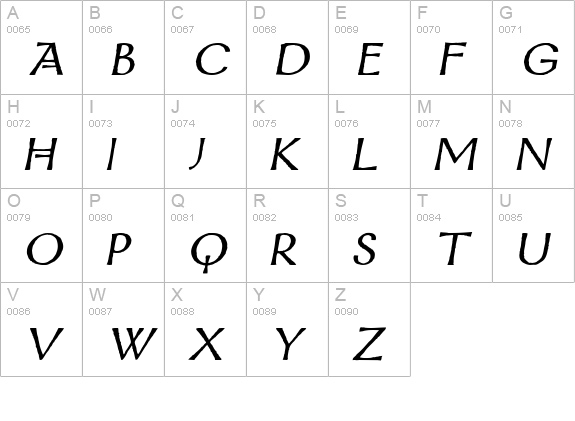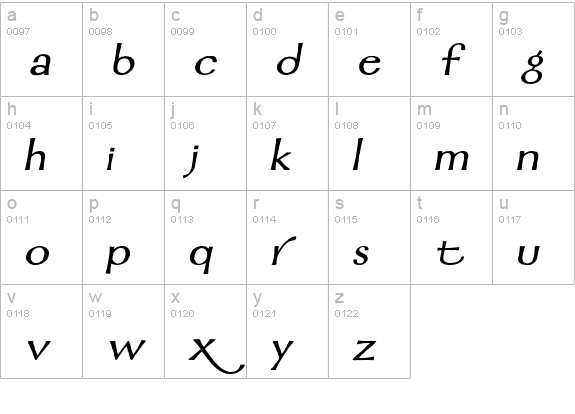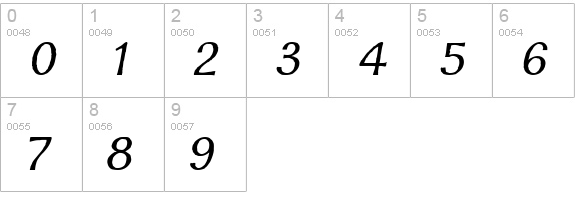
Mordred Demi Bold Italic is a sub-bold, structured, italic variant in the Mordred typeface family \xE2\x80\x94 well suited to sub-headlines and emphasised passages.
Introducing Mordred Demi Bold Italic font - a striking and dynamic typeface that exudes strength and modernity. The unique combination of boldness and elegance makes this font perfect for headlines, branding, and design projects that require a touch of sophistication. The italicized slant adds a sense of movement and energy to the text, making it stand out from the crowd. Mordred Demi Bold Italic font is not only visually appealing but also highly versatile, suitable for both digital and print applications. Its sleek and contemporary design will elevate any project to the next level, making a lasting impression on viewers. The best part? Mordred Demi Bold Italic font is available for free download at FontsMarket.com, so you can easily access this high-quality typeface and enhance your designs without breaking the bank. Don't miss out on the opportunity to add this stunning font to your collection and take your creative projects to new heights.